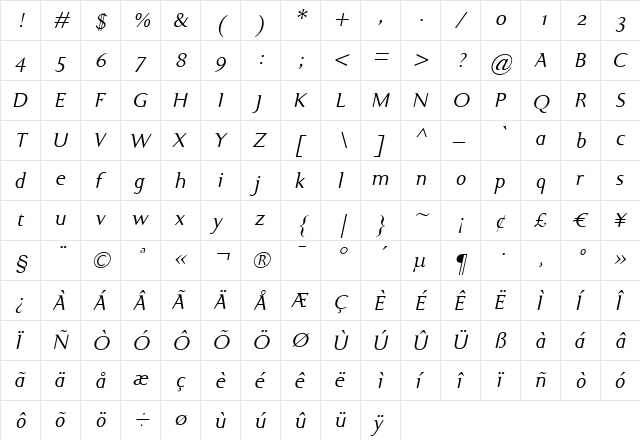
Ela Demiserif Regular Italic
Design Context for Ela Demiserif Typeface
Ela Demiserif carries the refined structure of traditional serif typography, with bracketed terminals and considered proportions that communicate credibility and craft. The slanted form adds forward momentum and visual energy.